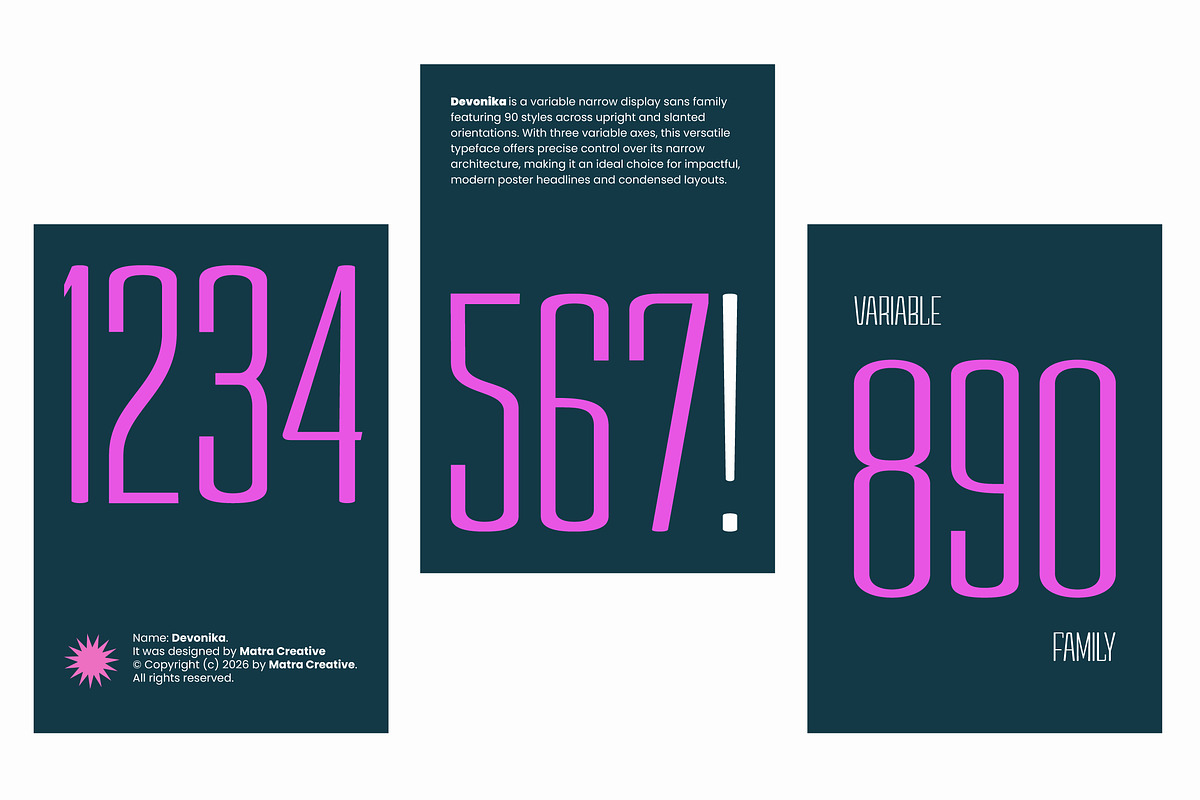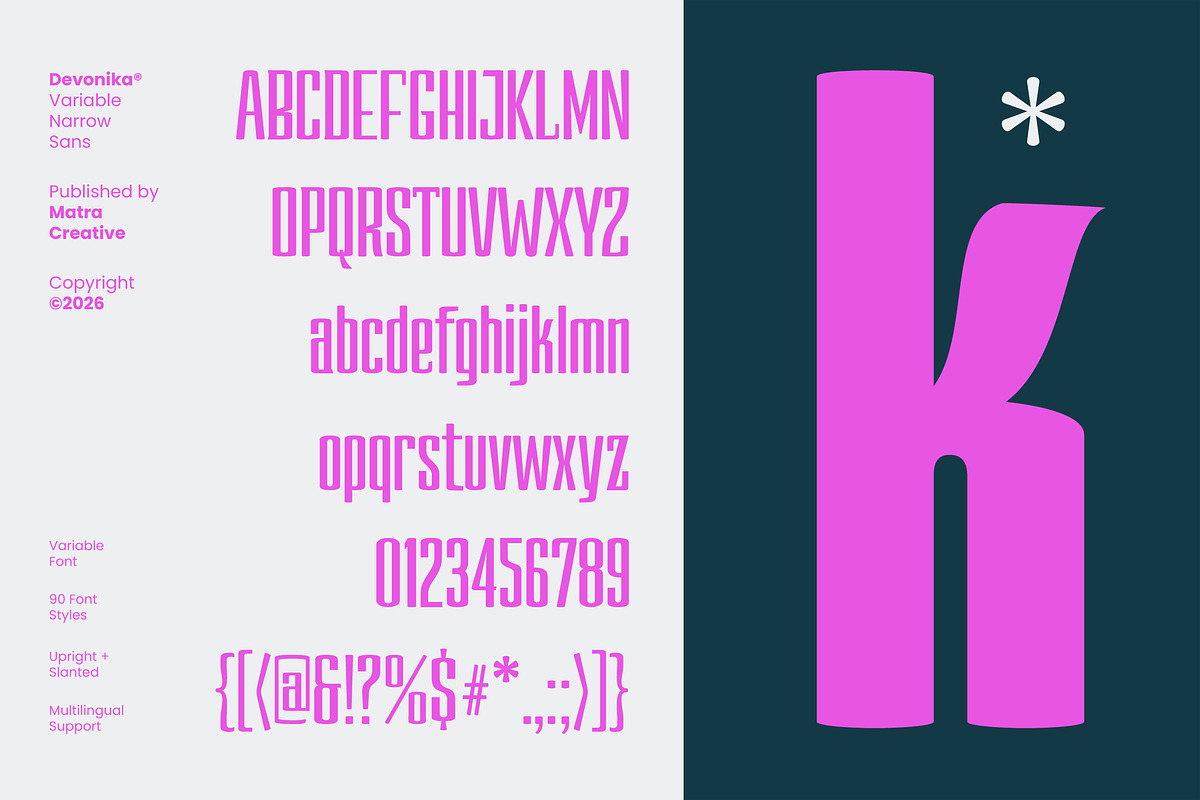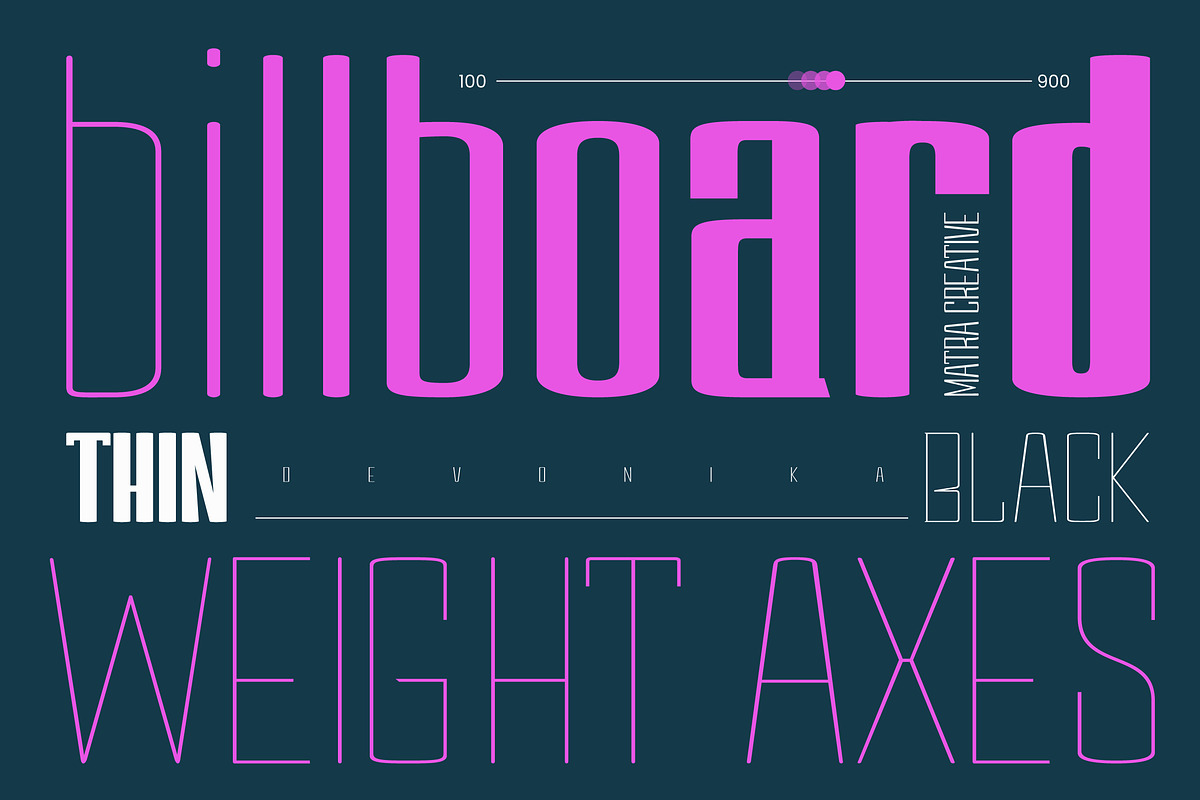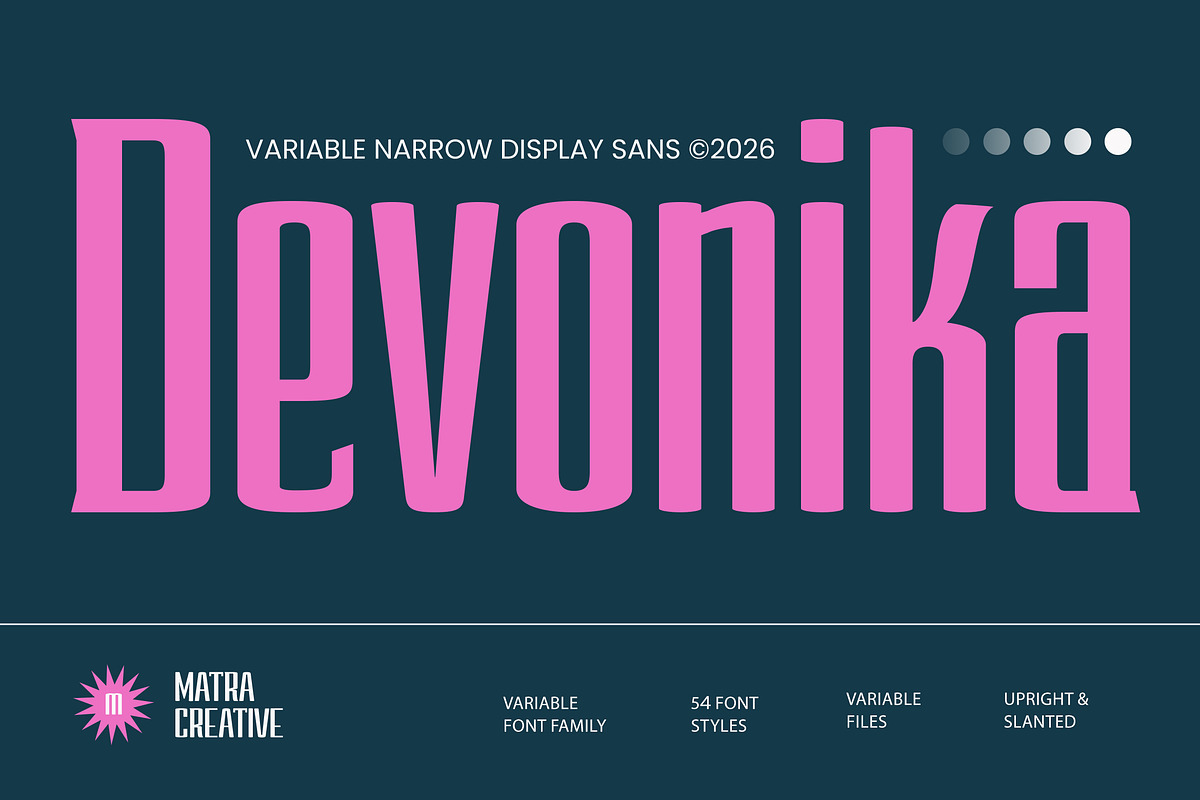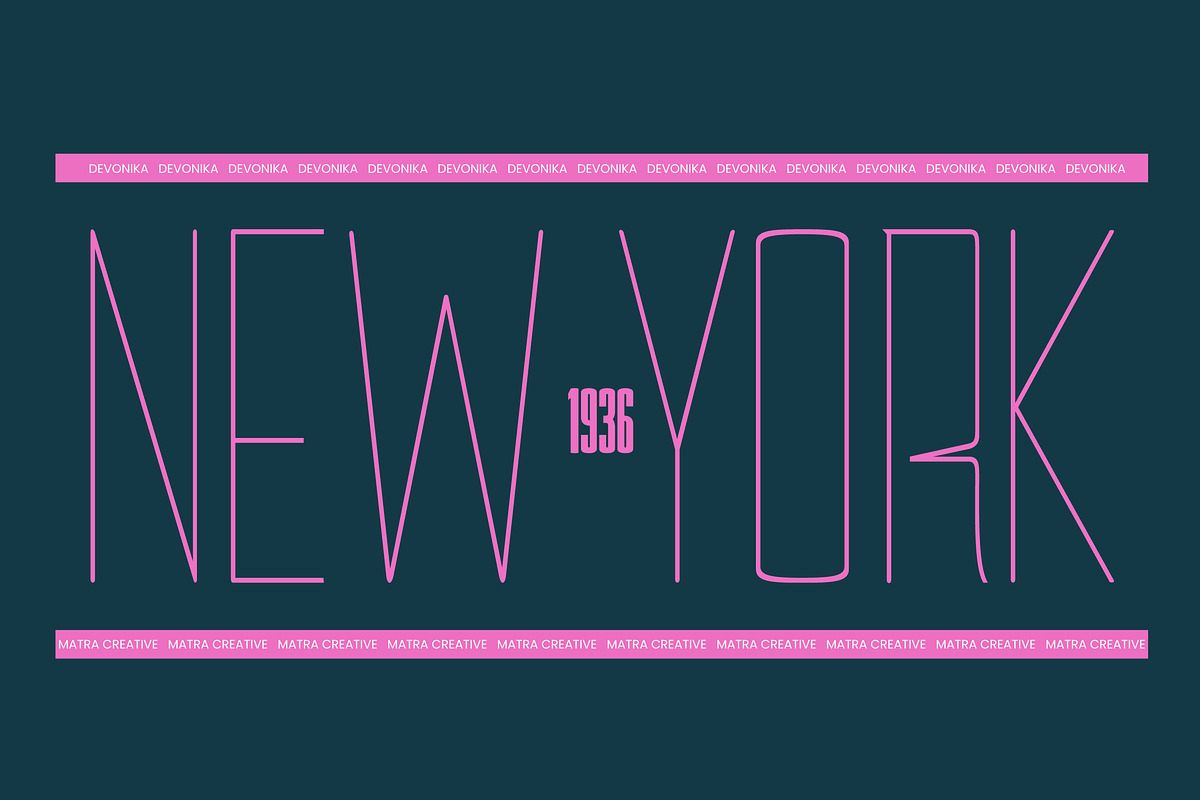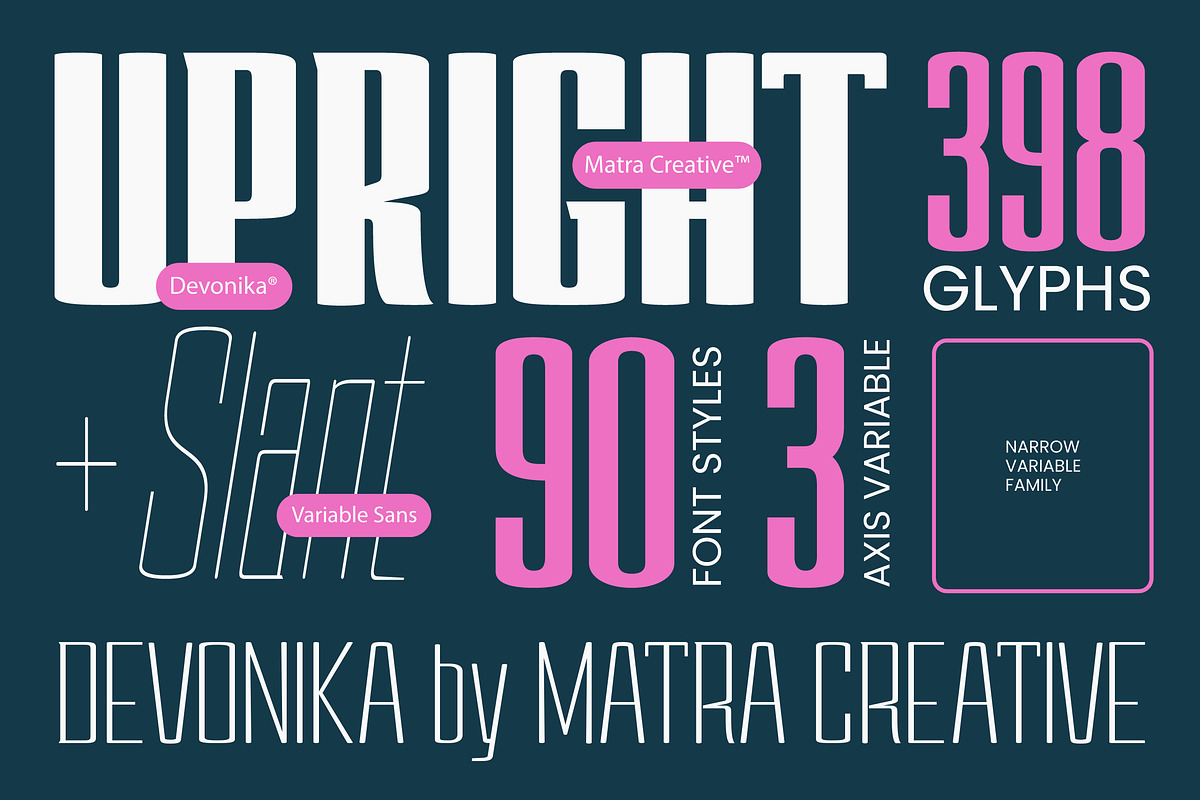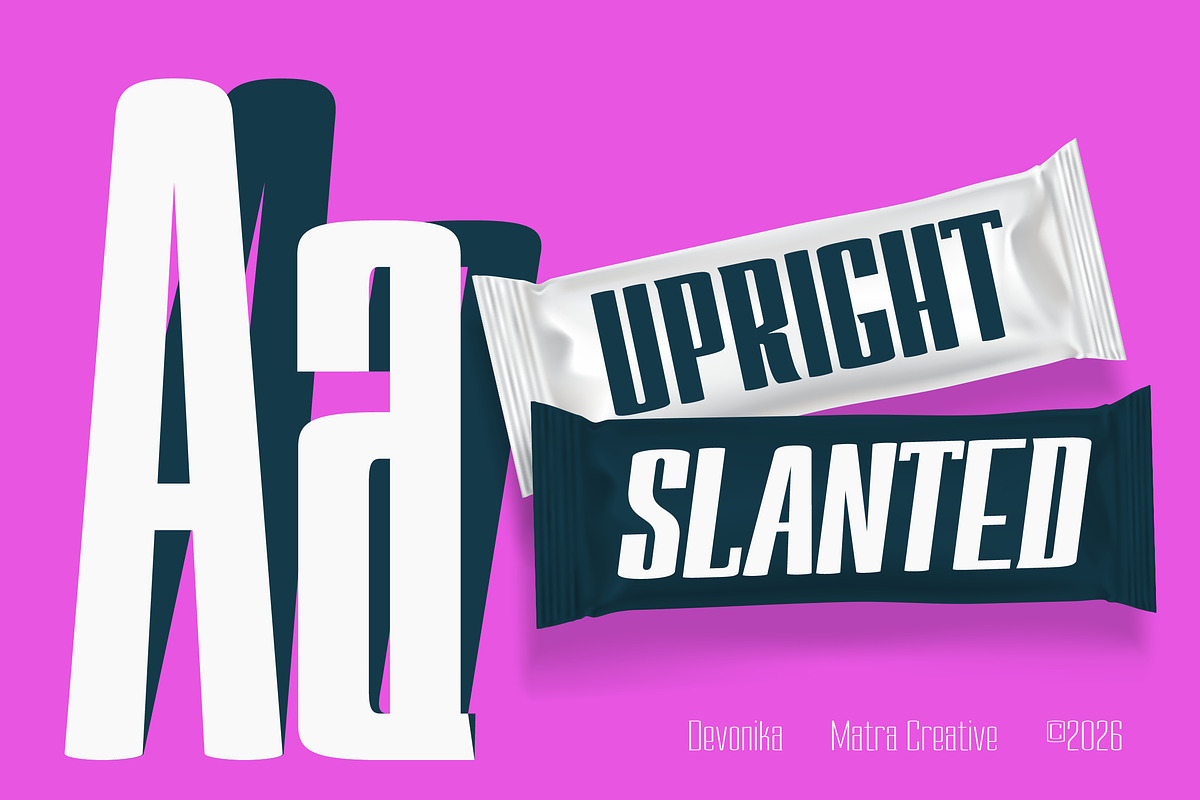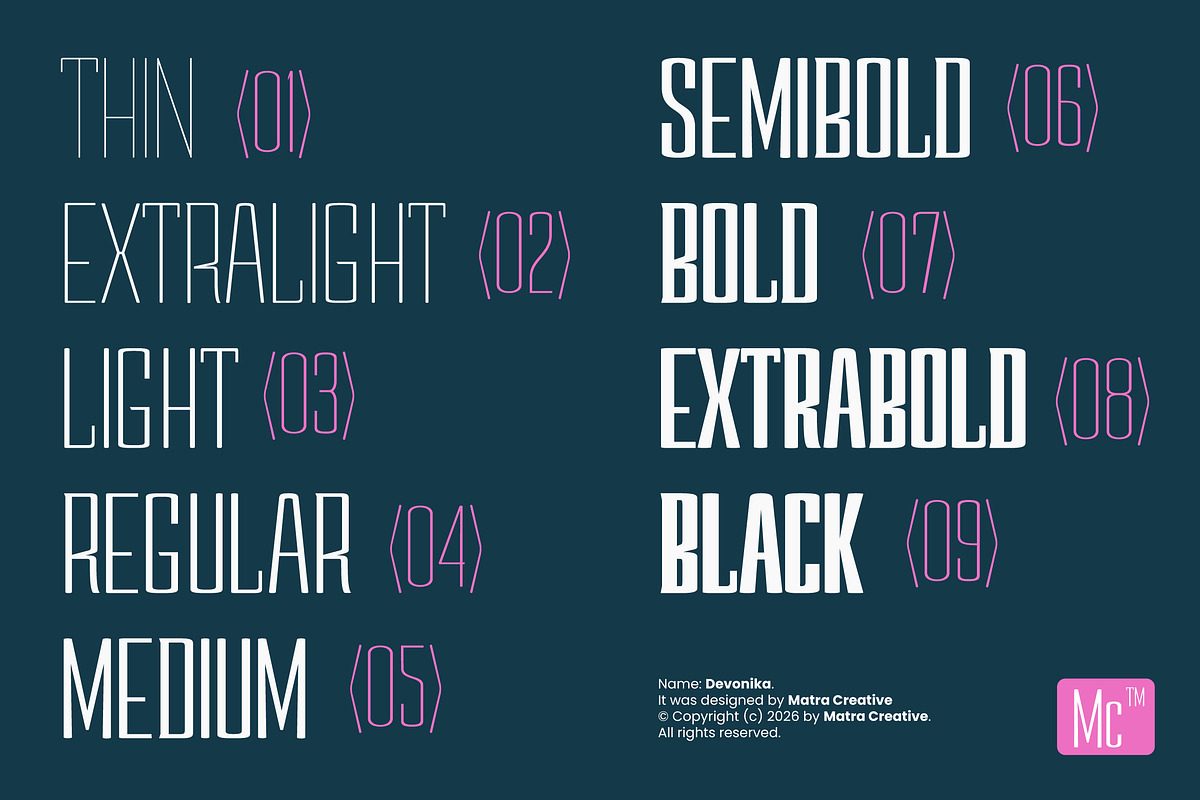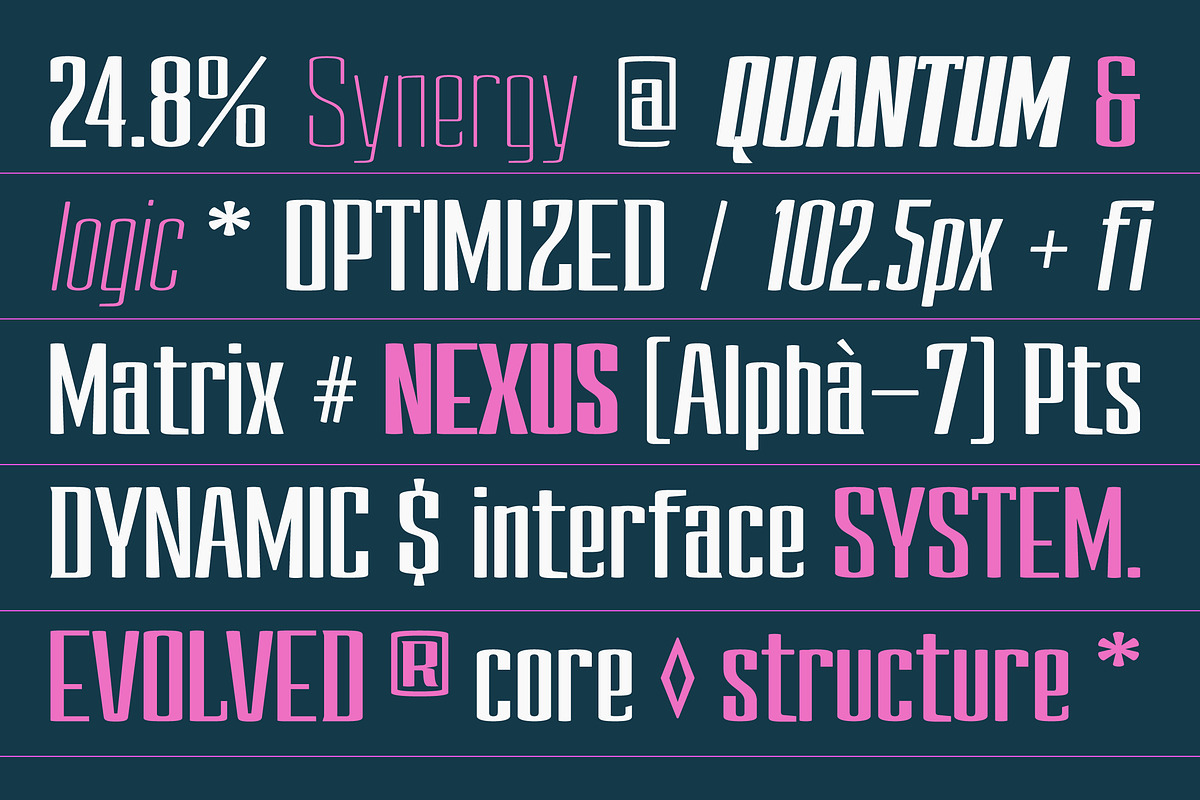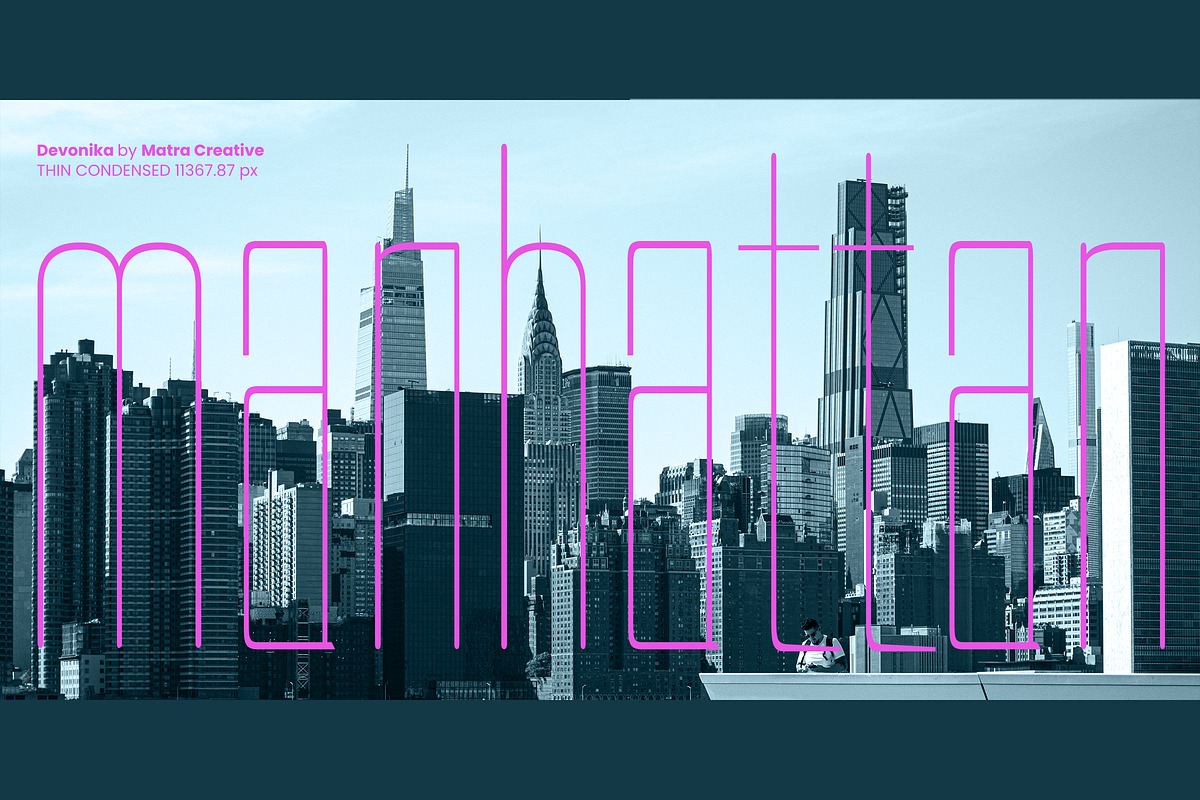
Devonika
Devonika is a modern display sans-serif meticulously crafted with a striking extra-condensed silhouette, designed to deliver maximum visual impact with a high-end, sophisticated aesthetic. By combining towering vertical proportions with a solid, grounded structure, this typeface exudes an air of authority and elegance. Its clean lines and sharp terminals create a beautiful "picket fence" rhythm, giving any typographic layout a cohesive, architectural feel that is both bold and harmoniously balanced. Engineered for versatility, Devonika excels where space is a premium but a powerful statement is required. It is an exceptional choice for editorial headlines, luxury branding, cinematic titles, and modern packaging. Whether used for a minimalist logo or a dense magazine cover, Devonika provides a sharp, polished finish that instantly elevates any creative project. Elevate your design with the timeless power of Devonika.